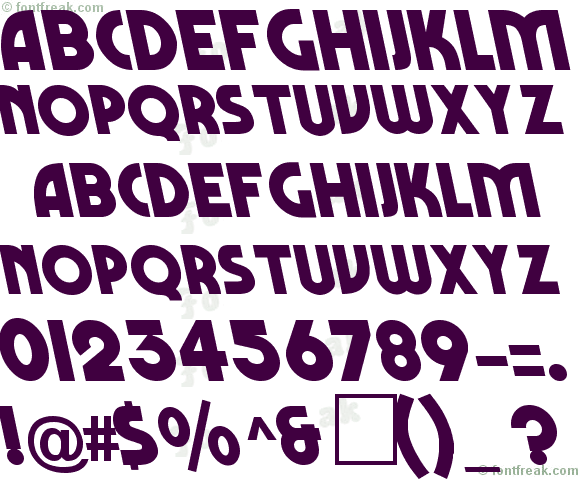
Backslide Bold
About Backslide
Backslide is a striking display font designed by Graphics Art Us, released as freeware. This bold, decorative typeface stands out with its unique character and artistic flair, making it an ideal choice for a variety of creative projects. The font features a heavy stroke weight and a moderate contrast that enhances its visibility and impact, while its slightly condensed letterforms provide a cohesive and stylish appearance. The spacing is well-balanced, allowing for easy readability despite its bold nature. Backslide's design showcases playful curves and unexpected angles, adding a sense of dynamism and energy to any text it graces.
This font is particularly well-suited for eye-catching uses such as movie posters, where it can effectively convey a dramatic theme, or restaurant menus, where its boldness can highlight special dishes and attract attention. Additionally, Backslide is a great choice for wedding invitations, bringing a whimsical touch to the design, and for branding projects, helping small business owners create memorable logos that stand out. Content creators will also find it a valuable asset for social media graphics and promotional materials, as its distinctive style captures the audience's attention.
Backslide appeals to graphic designers seeking a unique typeface that adds personality to their work, as well as small business owners looking to enhance their branding with a memorable font. Its versatility makes it an excellent choice for anyone looking to make a statement with their typography.
What truly sets the Backslide font apart is its captivating blend of boldness and creativity. Its distinctive features and artistic appeal make it a standout choice for those looking to infuse their projects with a touch of flair. Don’t miss the opportunity to enhance your designs with the Backslide font free download, available for anyone seeking to elevate their typographic style.